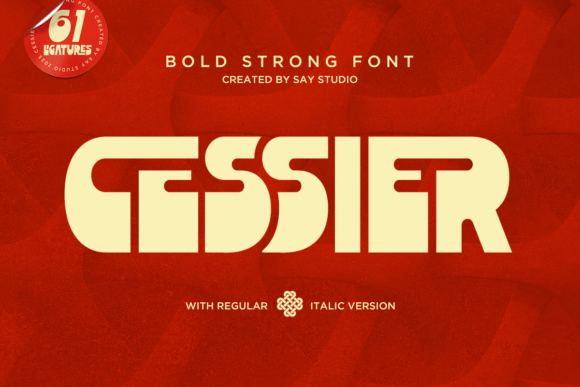
Introducing Cessier Font: The Bold and Strong Sans Serif for Powerful Visual Impact
In the world of typography, a font can make or break a design. When it comes to creating a powerful visual impact, designers need a typeface that exudes confidence and energy. This is where Cessier Font comes in – a bold and strong sans serif font designed to elevate your designs to the next level. With its thick strokes, rounded geometric shapes, and confident character, Cessier is the perfect choice for posters, logos, headlines, branding, packaging, and advertising designs.
Key Features of Cessier Font
Cessier Font boasts a range of features that make it an ideal choice for designers and crafters. Some of its key features include:
• Bold and Strong Design: Cessier’s thick strokes and rounded geometric shapes give it a bold and strong appearance that’s perfect for making a statement.
• Regular and Italic Styles: The font comes equipped with both regular and italic styles, providing versatility and flexibility in your designs.
• Rich Ligatures: Cessier features rich ligatures that add an extra layer of sophistication and elegance to your designs.
• Modern and Energetic Presence: The font’s modern design and energetic vibe make it perfect for both digital and print use.
Cessier Font is a versatile typeface that can be used in a wide range of design applications. Some of the areas where Cessier excels include:
• Posters and Flyers: Cessier’s bold design makes it perfect for creating eye-catching posters and flyers that grab attention.
• Logo Design: The font’s confident character and strong appearance make it an excellent choice for logo design.
• Headlines and Titles: Cessier’s thick strokes and rounded geometric shapes make it perfect for headlines and titles that need to make a statement.
• Branding and Packaging: The font’s modern and energetic presence make it an excellent choice for branding and packaging designs.
• Advertising: Cessier’s bold design and confident character make it perfect for advertising designs that need to grab attention.
Why Choose Cessier Font?
With so many fonts available, why choose Cessier Font? Here are just a few reasons why Cessier stands out from the crowd:
• Unique Design: Cessier’s bold and strong design makes it a unique and refreshing addition to any design.
• Versatility: The font’s regular and italic styles, plus rich ligatures, provide versatility and flexibility in your designs.
• Modern and Energetic: Cessier’s modern design and energetic vibe make it perfect for both digital and print use.
• Ease of Use: The font is easy to use and pairs well with a wide range of other fonts.
In conclusion, Cessier Font is a bold and strong sans serif font that’s perfect for designers and crafters looking to make a powerful visual impact. With its thick strokes, rounded geometric shapes, and confident character, Cessier is the perfect choice for posters, logos, headlines, branding, packaging, and advertising designs. Its versatility, modern design, and energetic vibe make it an excellent addition to any design. So why wait? Try Cessier Font today and take your designs to the next level!